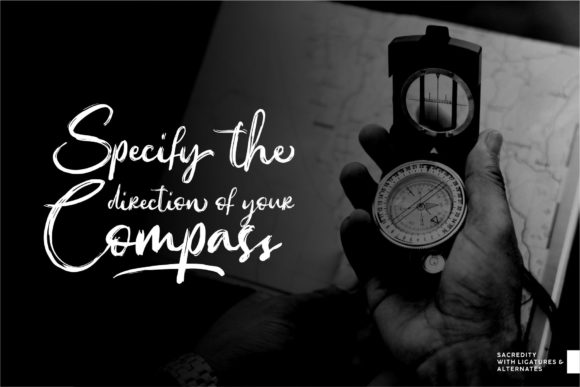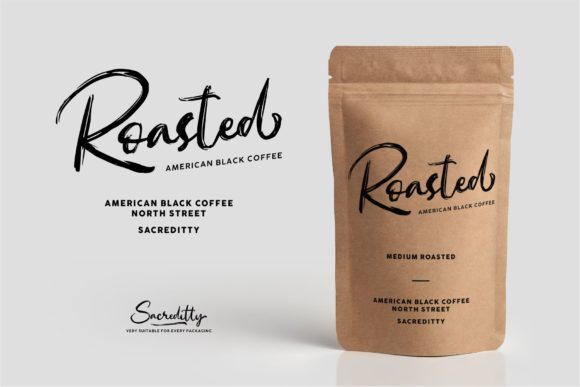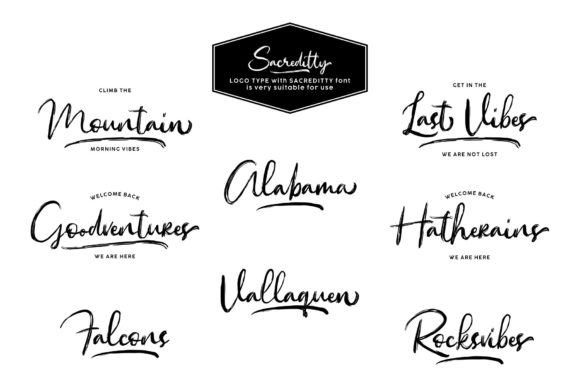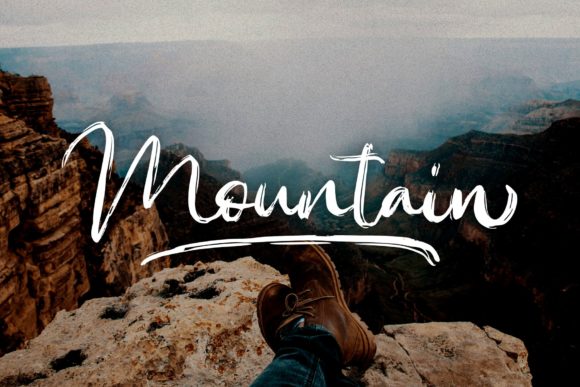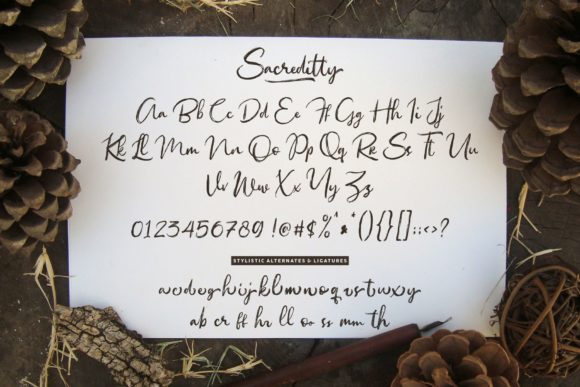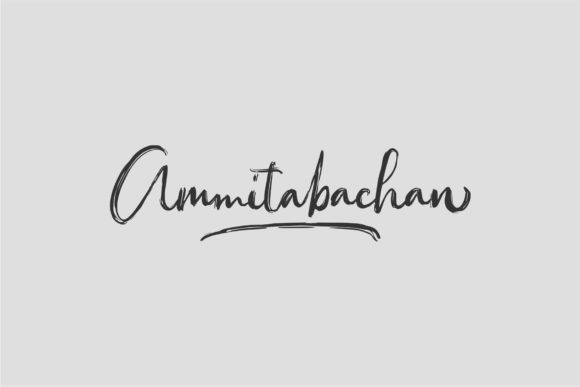
Sacreditty Font
About Sacreditty Font
Sacreditty is a beautiful and bold handwritten font with an incredible feel. Get inspired by its sophisticated style, and turn any design project into a stunner!